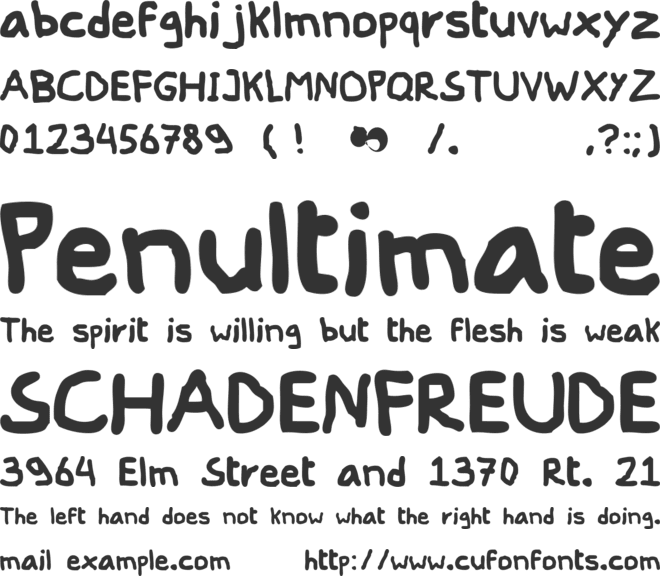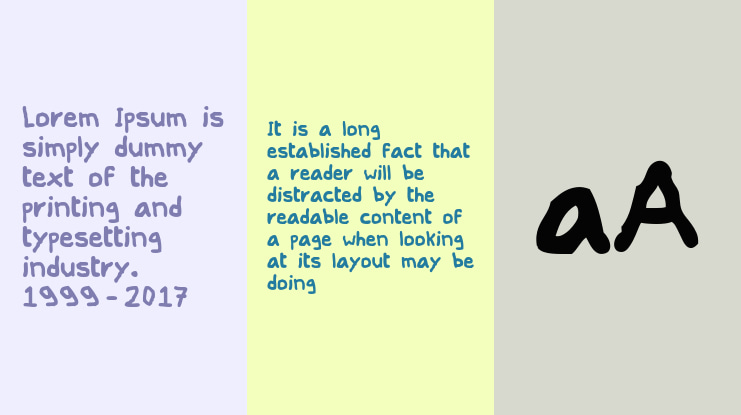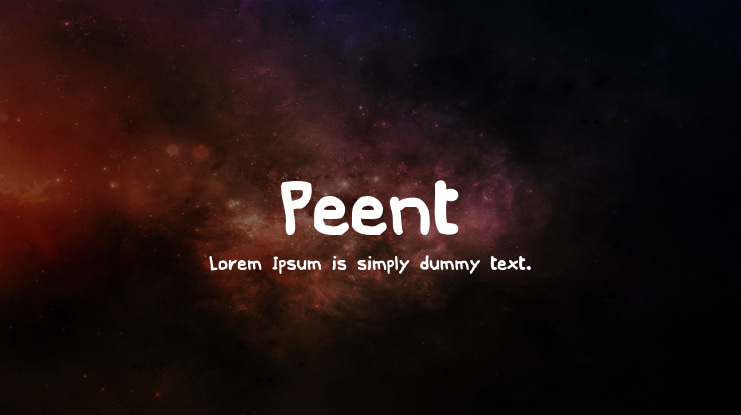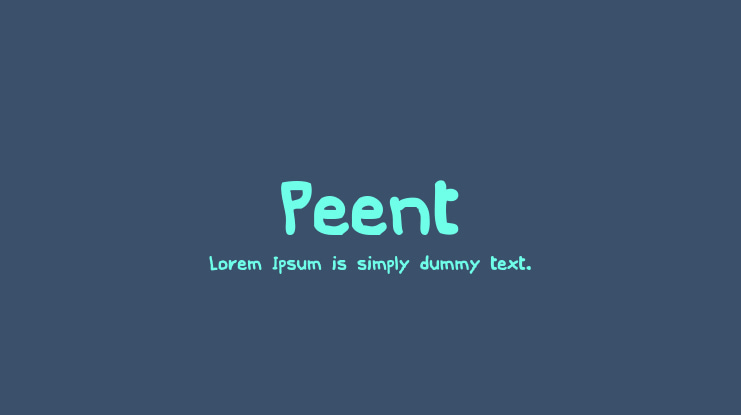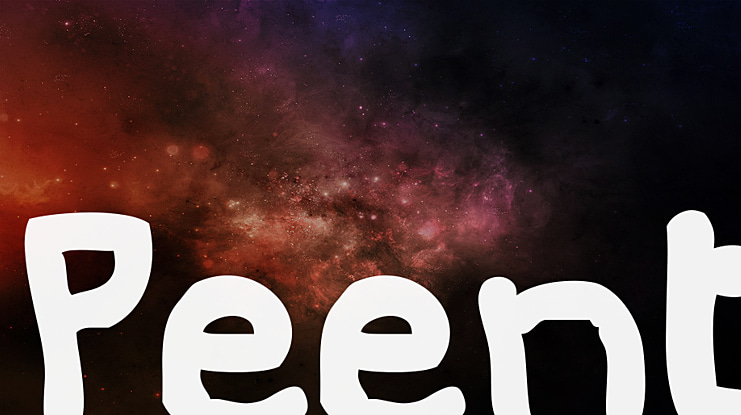
Peent Font
I've made this font for a comic I used to draw. I realized that it could be used for lots of other things too. Hope someone can use it. Leave a comment if you downloaded it. :)